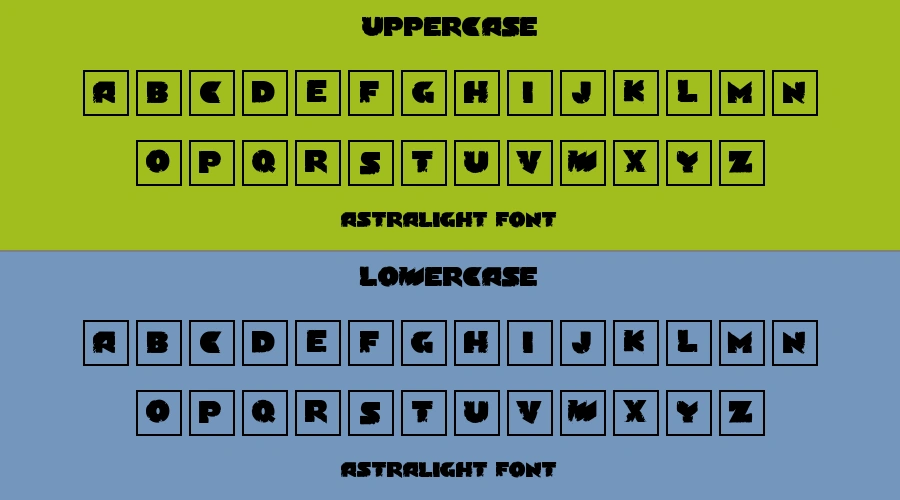
About Astralight Font
Astralight Font stands out for its distinctive combination of fluid motion and visual comfort. Ideal for poster titles, it provides the personality and sophistication that professional projects demand. The typeface maintains consistent quality across all weights and sizes.
Key features include refined dramatic weight and practical arbitrary fractions, enhancing typographic expression. In artistic statements applications, Astralight Font demonstrates exceptional small cap rendering. The stem weight and lifestyle alignment contribute to its distinctive character and professional appeal.